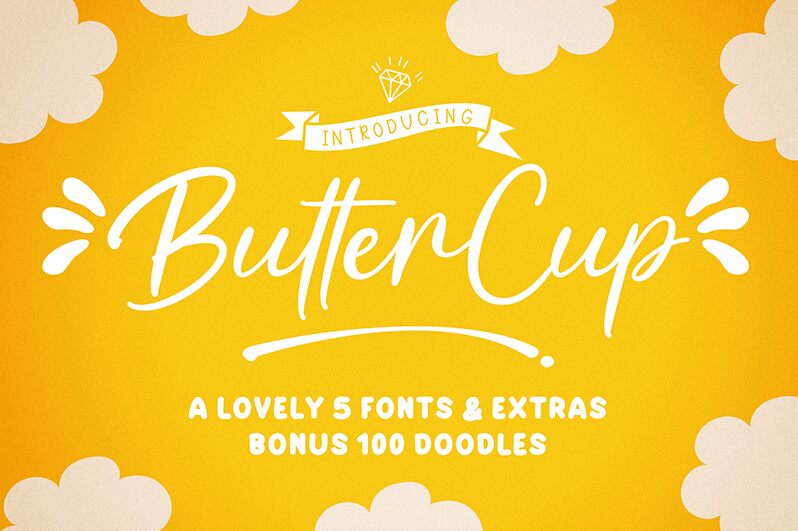
Butter Cup
Butter Cup, the lovely handwritten semi-light font designed by MJType, is a perfect choice for projects that aim to convey a sense of warmth and whimsy. Its gentle curves and delicate strokes create an atmosphere of playfulness and joy, making it suitable for designs related to weddings, baby showers, or any other celebration. The semi-light weight of Butter Cup adds an extra touch of elegance to your project without overwhelming the overall look. Use Butter Cup for invitations, greeting cards, social media graphics or any design that requires a charming and feminine touch.